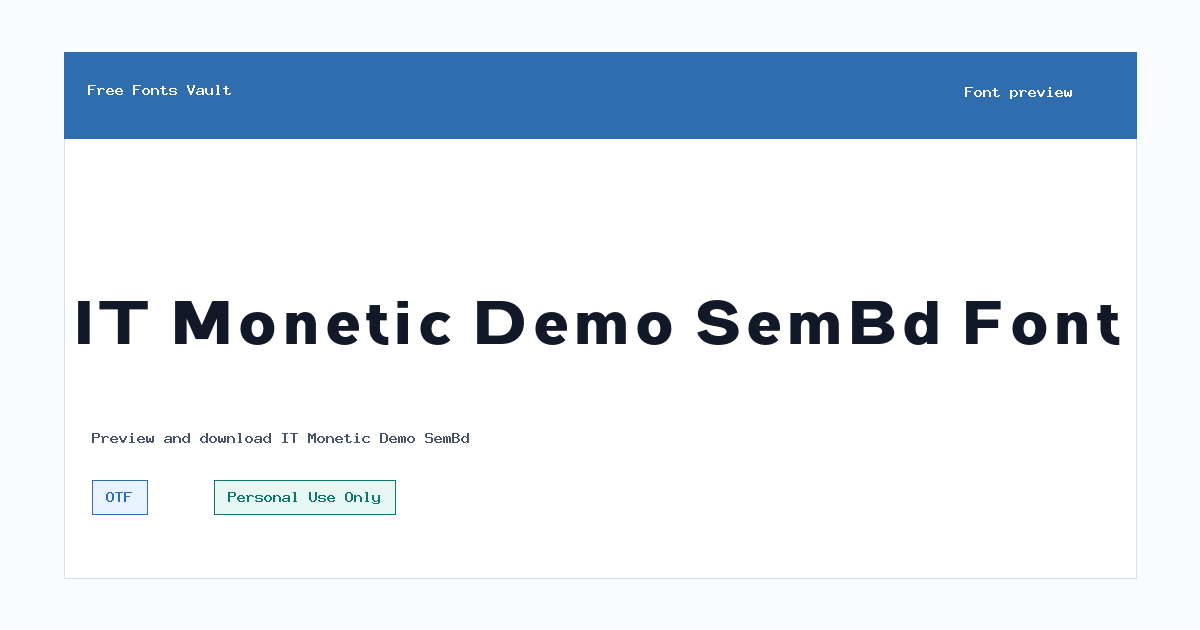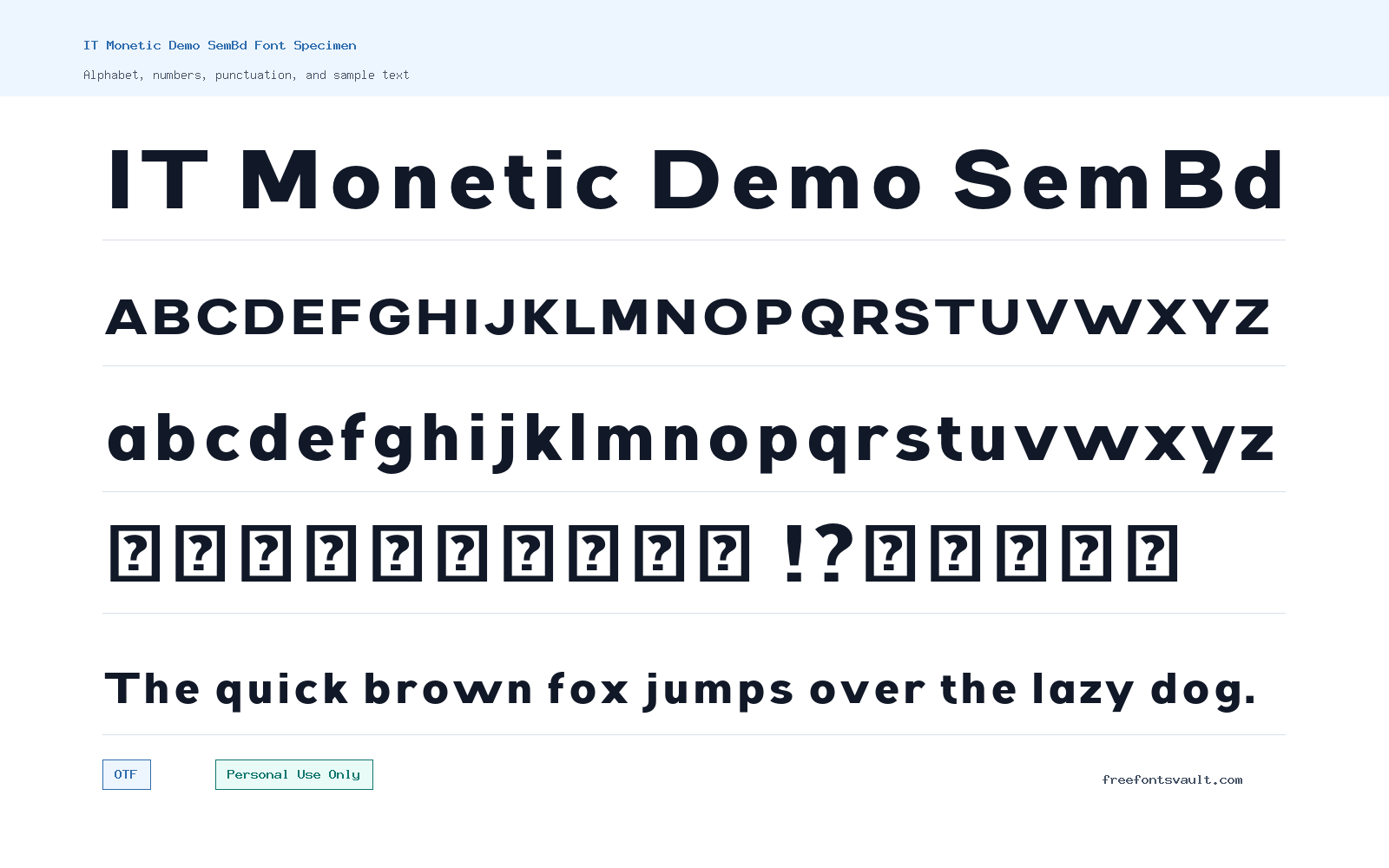
IT Monetic Demo SemBd
- Designer Indotype
- Foundry Indotype Foundry
IT Monetic Demo SemBd font.
IT Monetic Demo SemBd is a semi-bold OpenType font from Indotype Foundry. It is a personal-use demo font, so it is best used for testing layouts, trying display text, and exploring whether the style fits a project before seeking the right license for wider use.
About IT Monetic Demo SemBd
IT Monetic Demo SemBd sits in a useful middle ground for designers who want a stronger text presence without moving into an extra-heavy display style. The name indicates a semi-bold weight, and the font file is marked with a 700 weight value, so visitors can expect a heavier cut that should stand out more clearly than a regular style. The license text describes the family as a sans serif font family, which makes it a practical candidate for modern headings, short labels, interface mockups, and clean brand-direction experiments. Because this is a demo cut, it should be treated as a preview and testing font rather than a finished commercial asset.
Use the preview tool to test the exact words you plan to set, especially if you are considering it for a logo draft, poster headline, packaging concept, YouTube thumbnail, social graphic, or website hero section. Semi-bold sans serif fonts can work well when the text needs to feel clear and structured, but they still need spacing checks. Try uppercase and lowercase samples, short phrases, numbers, punctuation, and any brand name with repeated letters. If the letters feel too tight in a logo idea, add tracking or test a different weight from the full family if one is available from the foundry.
For poster and web mockup work, keep the font focused on short, visible text. A semi-bold style can make headings and call-to-action lines easier to notice, but it may feel too firm for long reading sections depending on the size and spacing. If you use it in a mock website, test it at common heading sizes and check how it pairs with a quieter body font. A neutral serif, a lighter sans serif, or a simple system font can help keep the layout balanced while letting IT Monetic Demo SemBd carry the main visual weight.
- Semi-bold 700 weight for stronger headings, labels, and display text
- Sans serif family description, useful for clean layout and branding experiments
- Works best in short text where shape, spacing, and weight can be checked carefully
- Logo concept drafts and brand-direction exploration
- Poster headlines and event graphic mockups
- Website hero text and landing page layout previews
- Social media titles, thumbnails, and short promotional graphics
- Typography tests before choosing or licensing a full font family
What weight is this font?
This version is a semi-bold style, with the file data marked at weight 700.